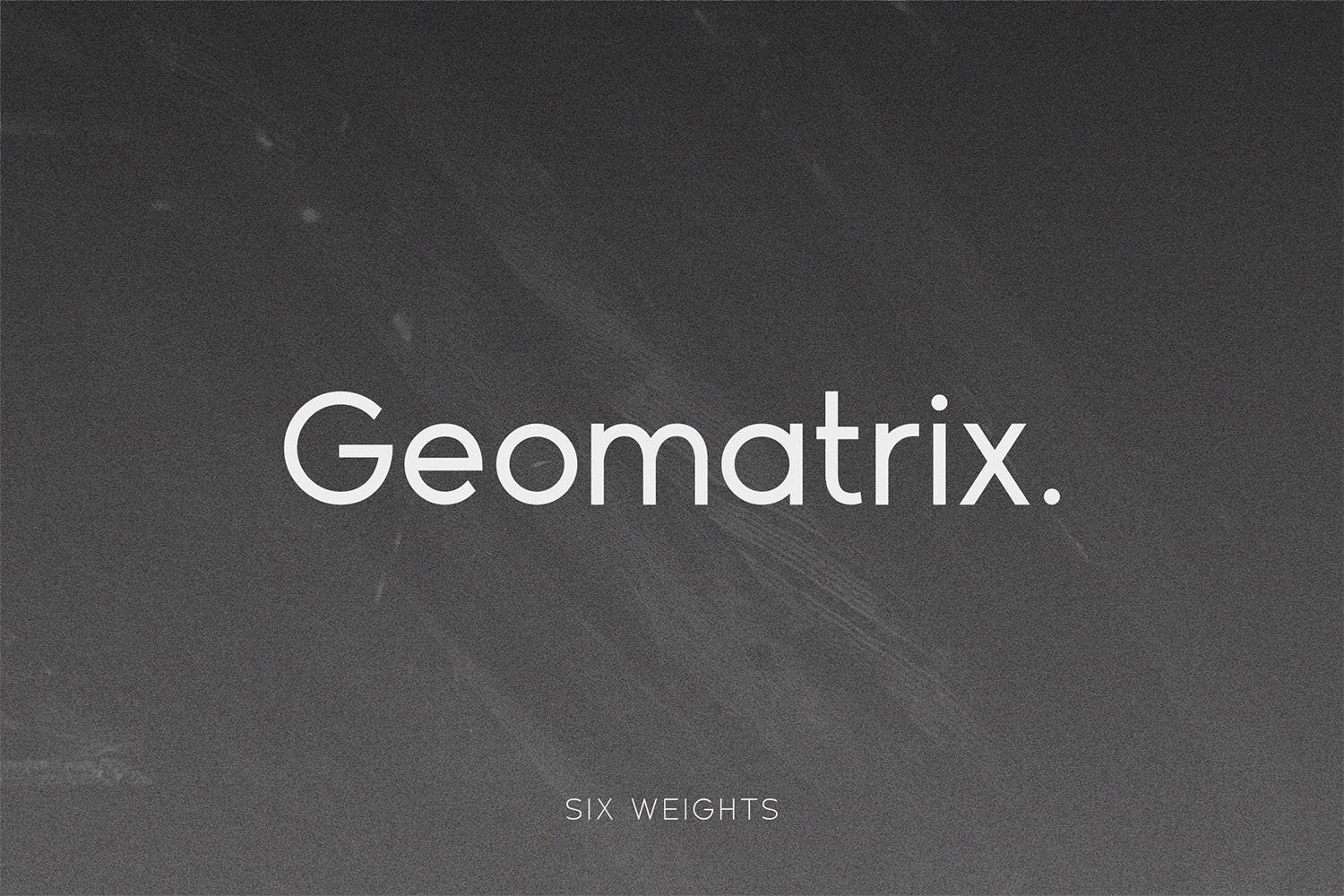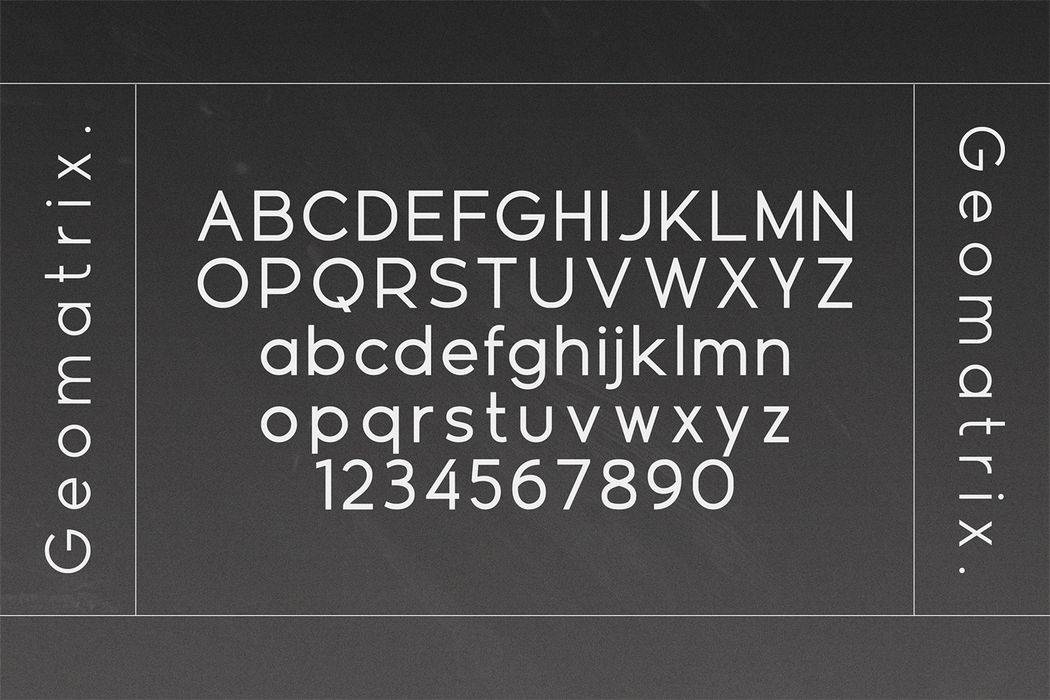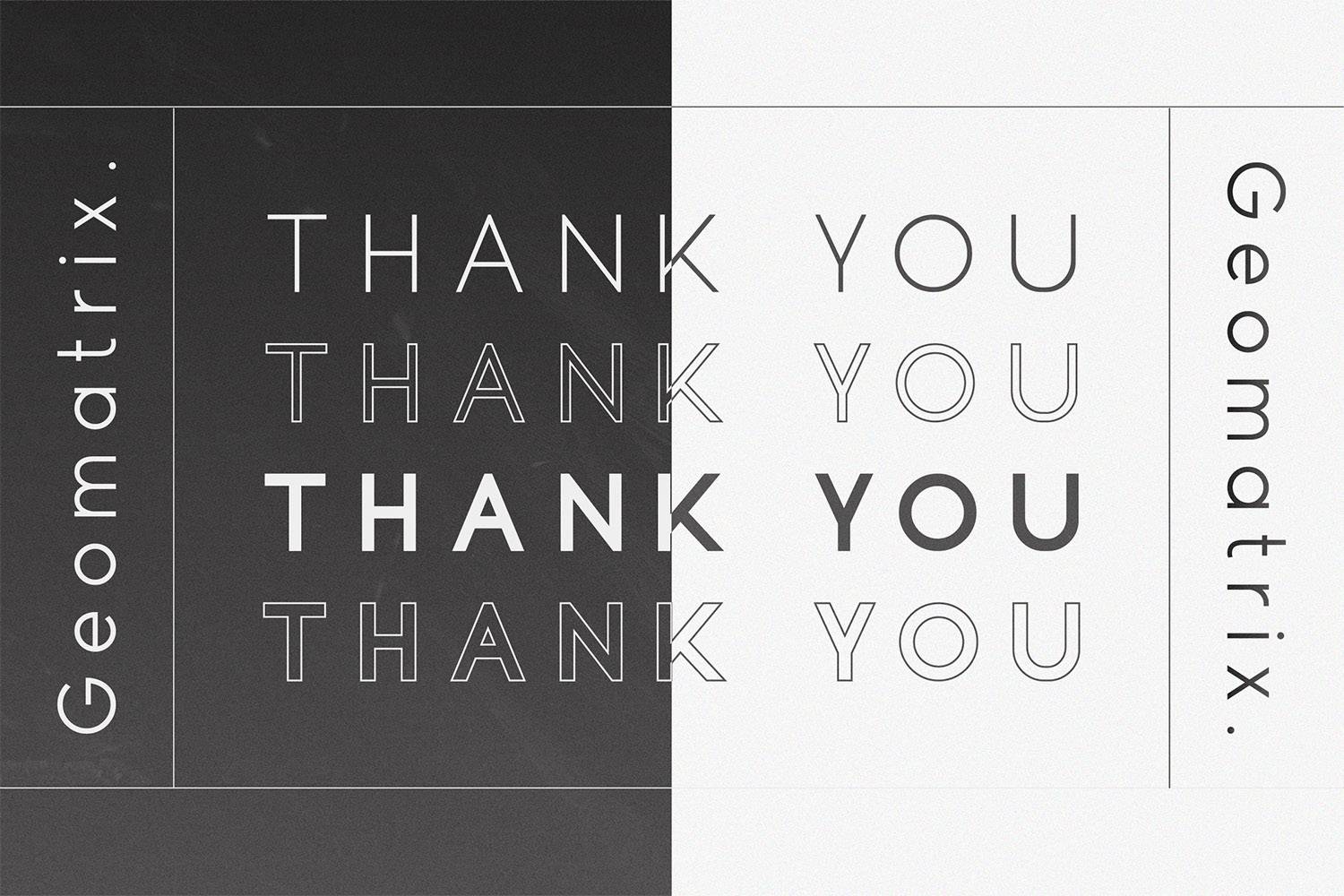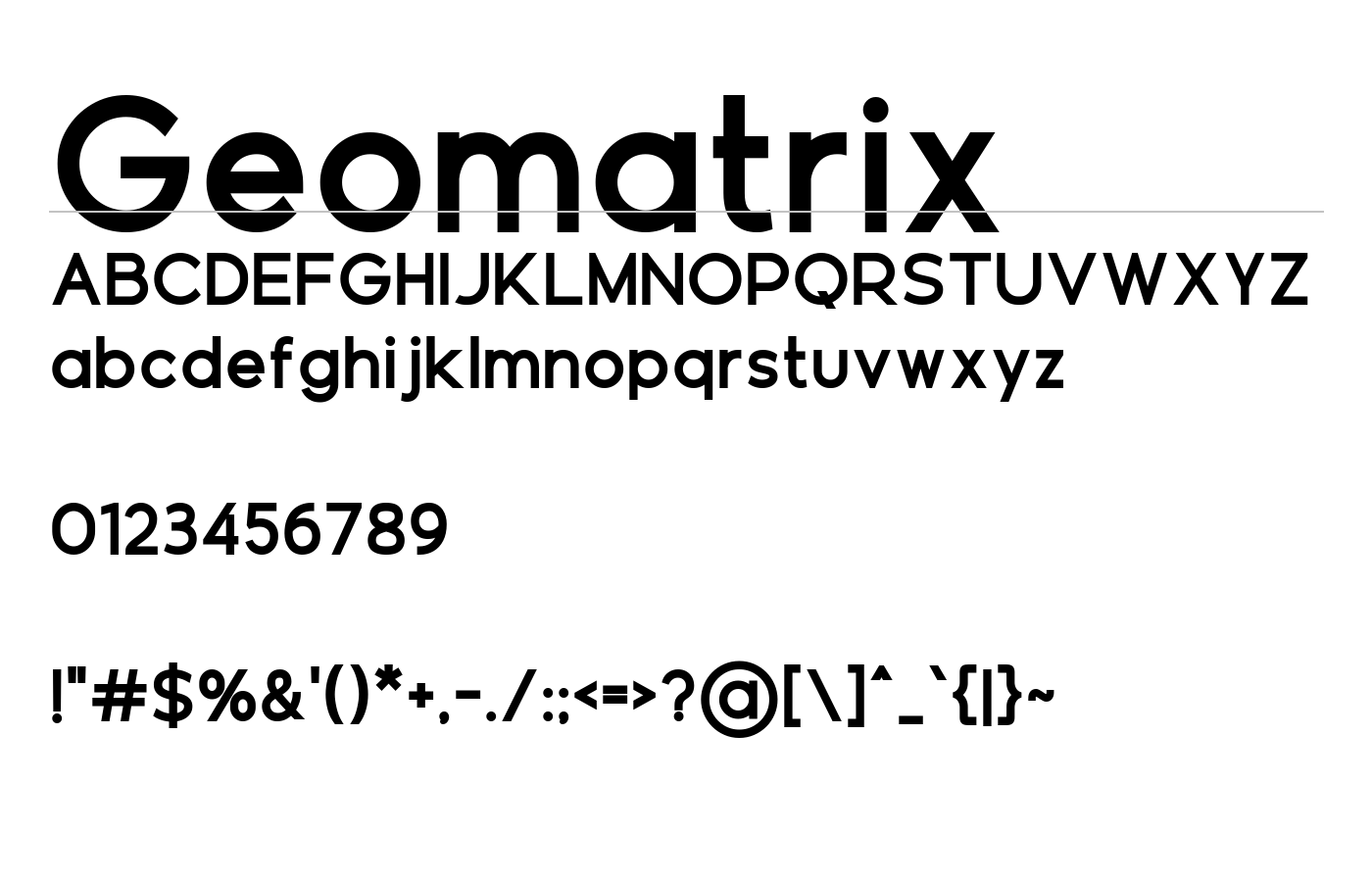
Geomatrix is a clean, modern sans serif font with a geometric design characterized by uniform stroke widths and a balanced x-height, offering excellent readability. Its simple, rounded letterforms and ample spacing give it a contemporary and approachable feel, making it well-suited for branding, editorial headlines, and digital interfaces. This font shines in projects that require a professional yet friendly appearance, such as tech companies, startups, or minimalist design work.
Geomatrix Font
About Geomatrix Font